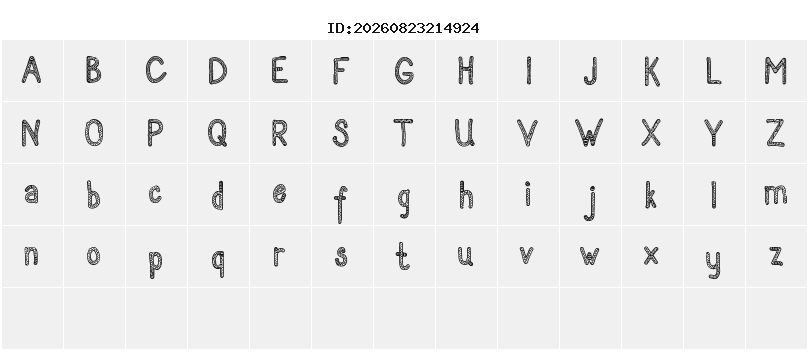
Sanzen Preview
• Font Name: Sanzen
About Sanzen.ttf
Sanzen.ttf is a modern, elegant sans-serif font designed for ultimate readability and visual harmony. Perfect for branding, headlines, web design, and print materials.